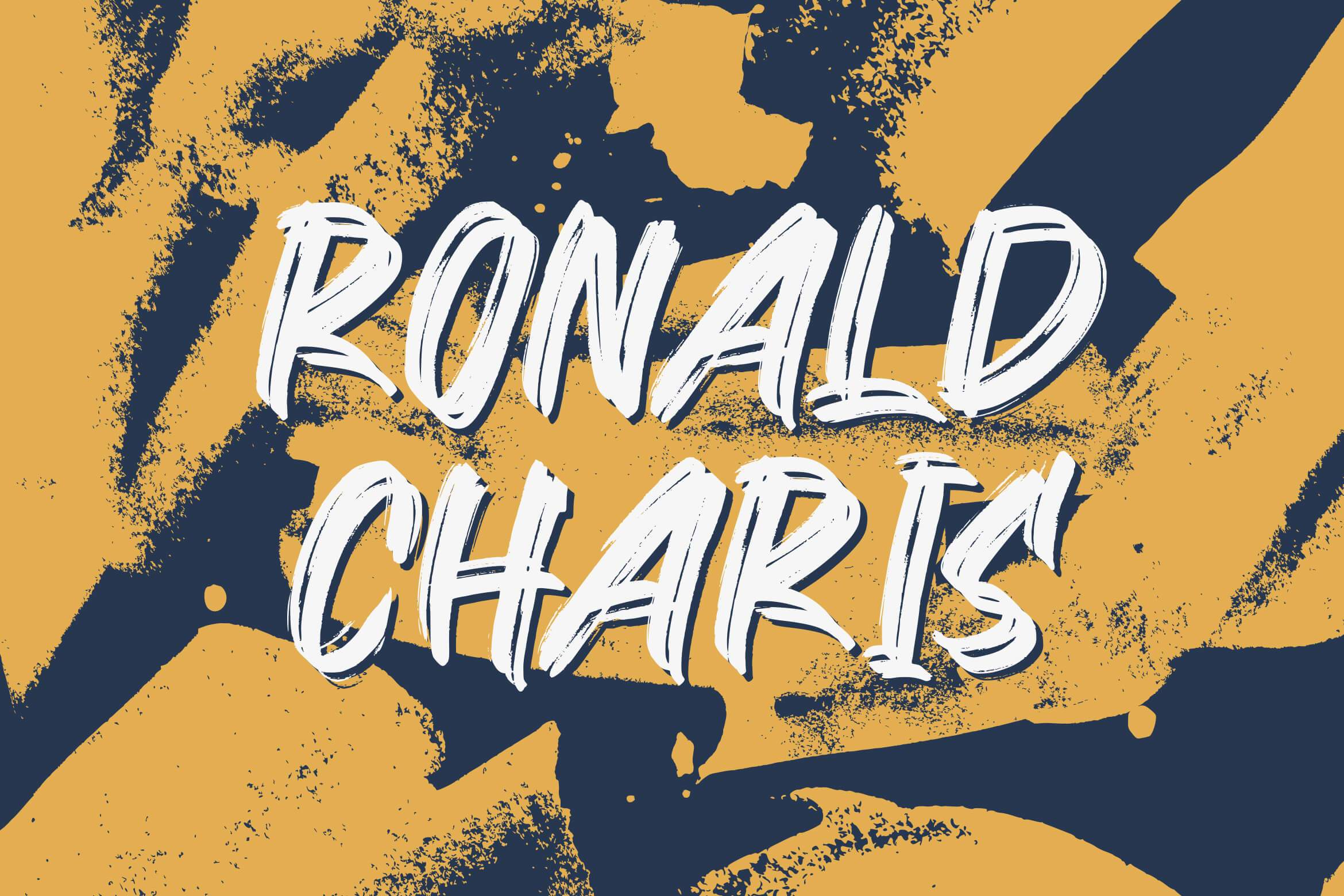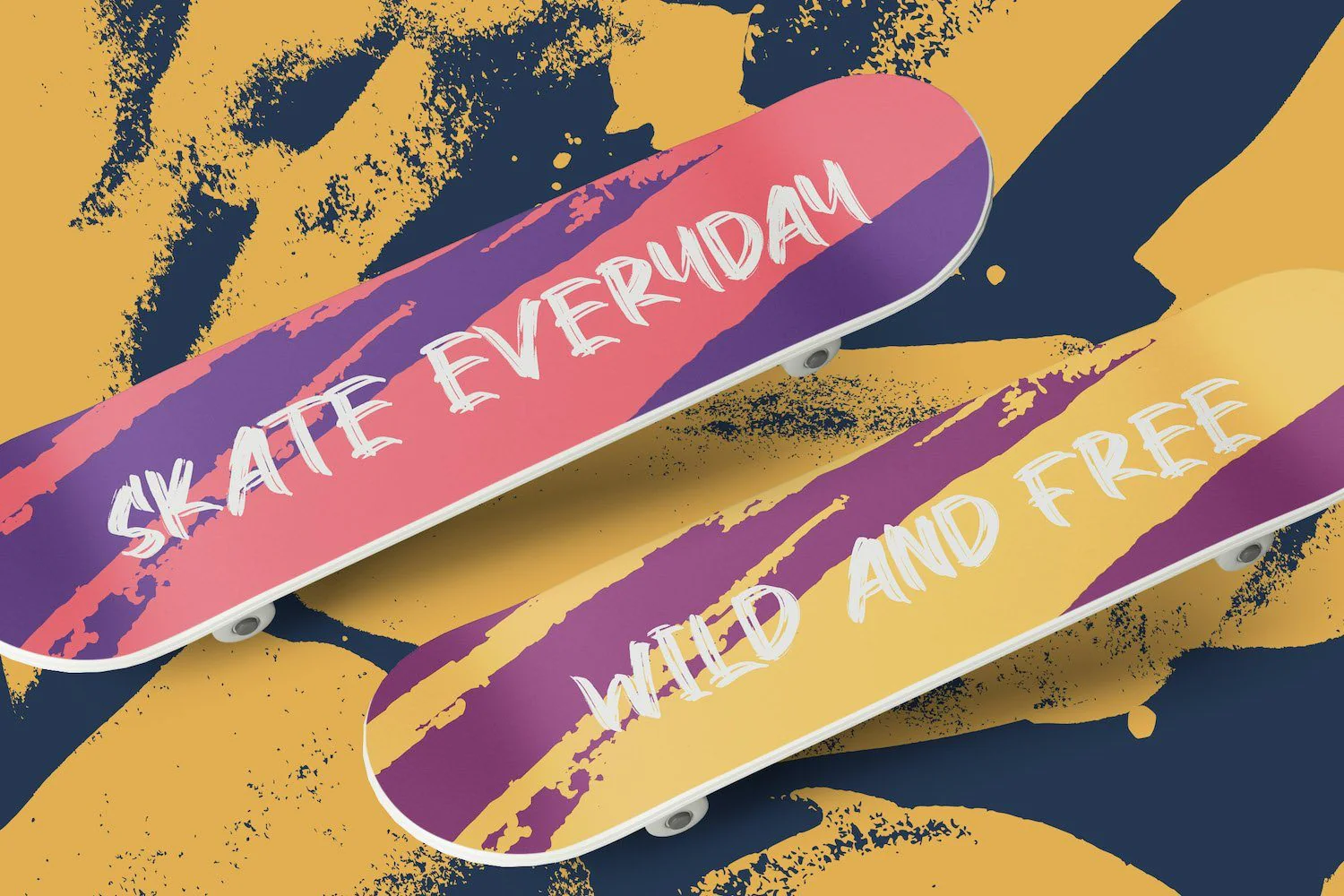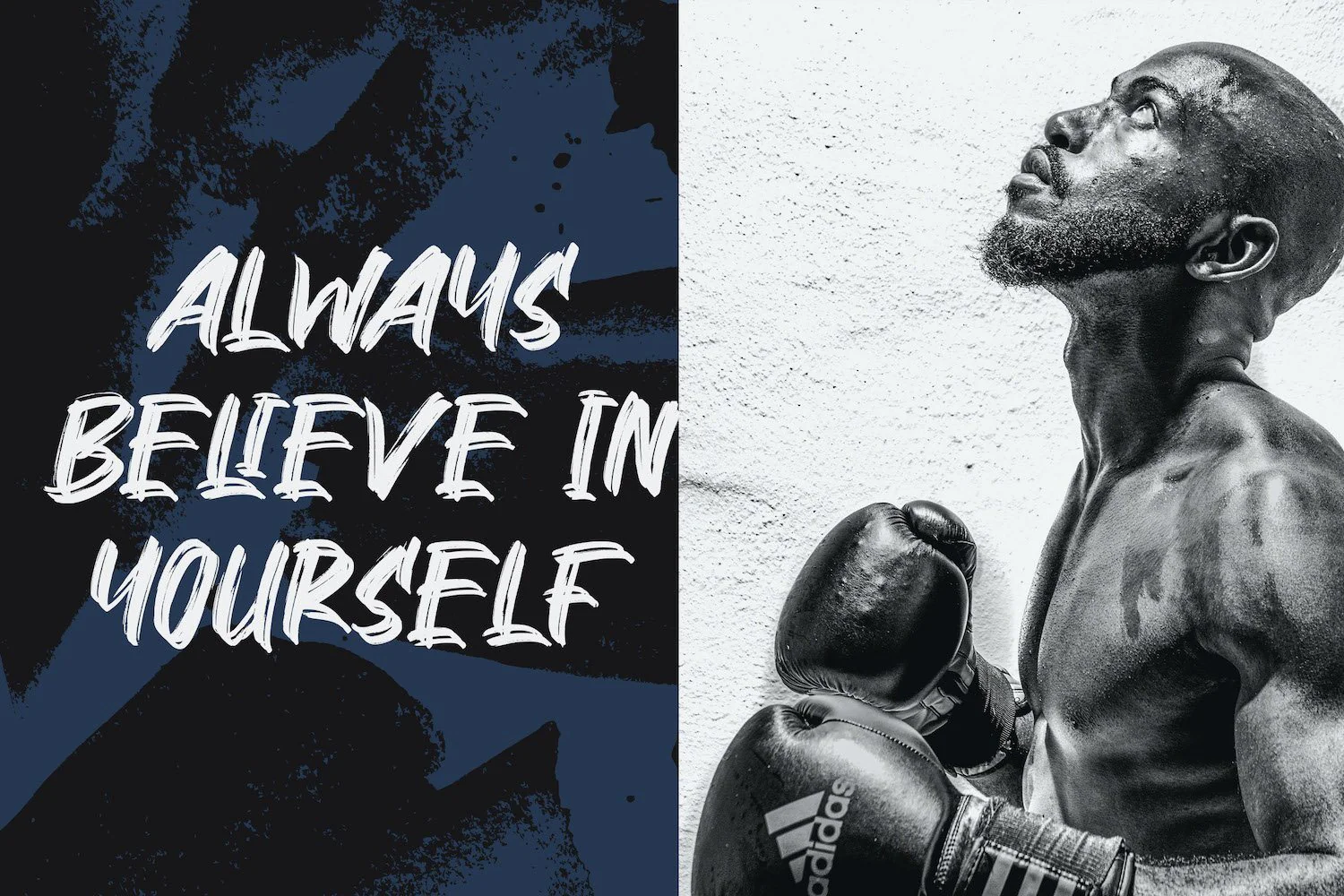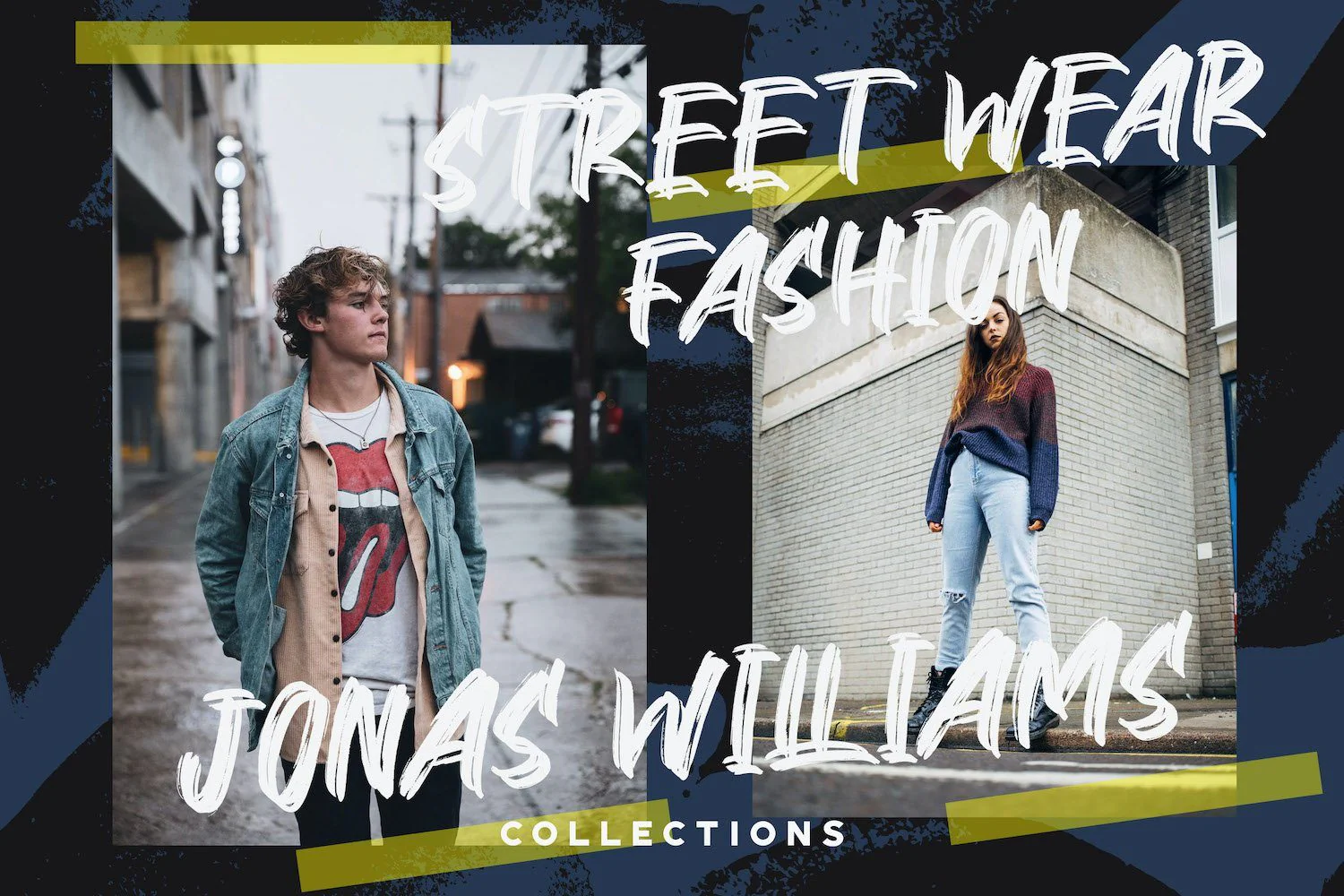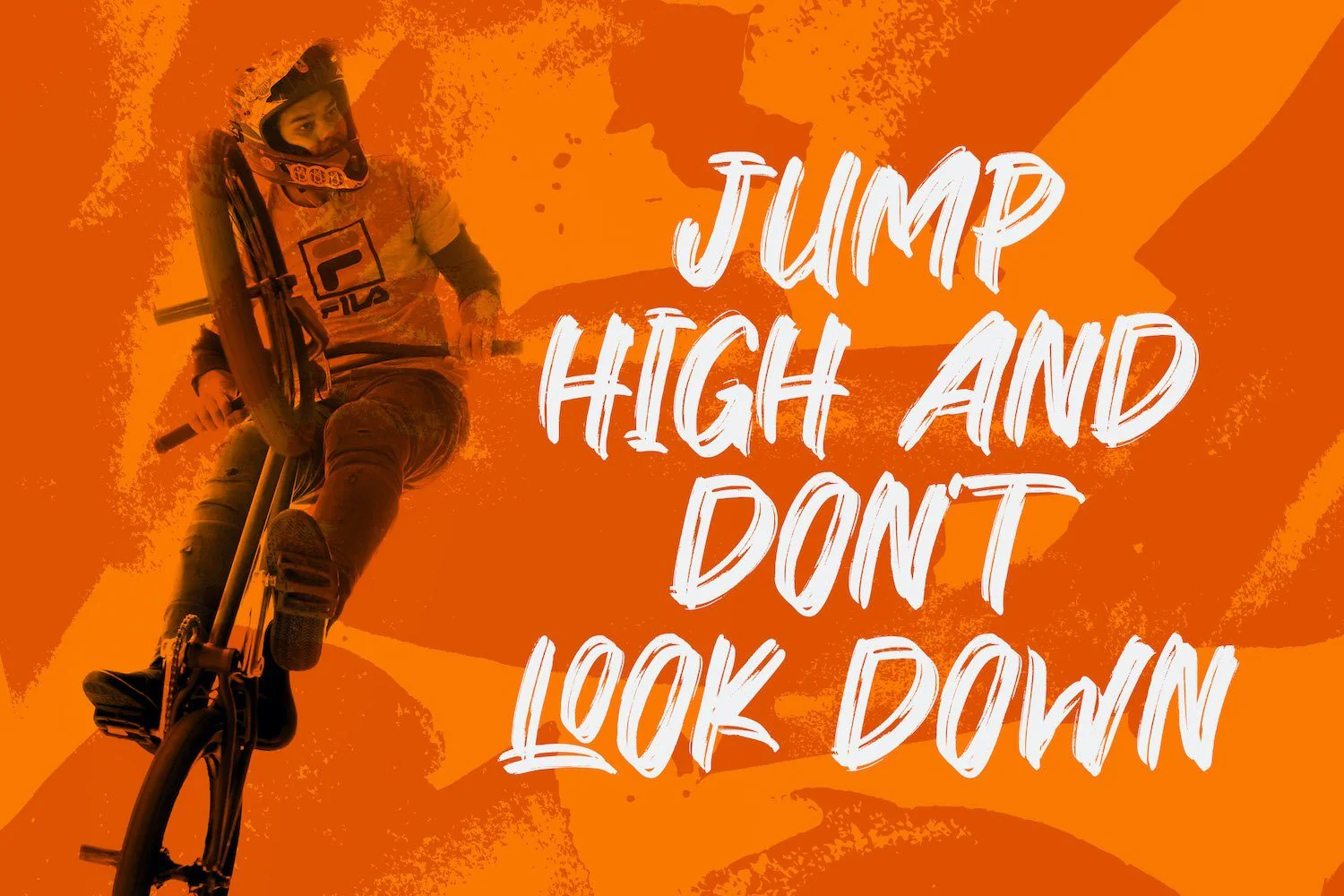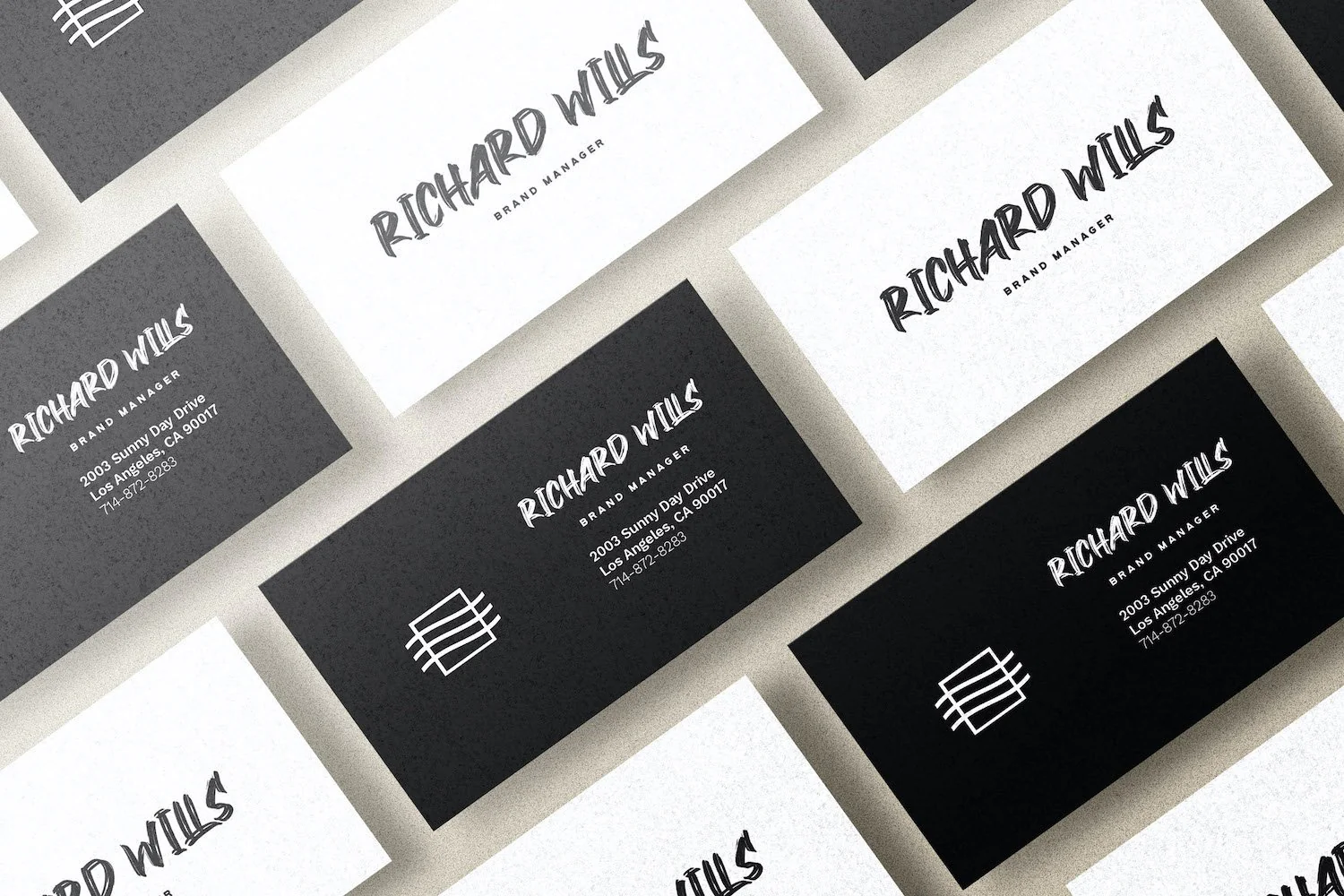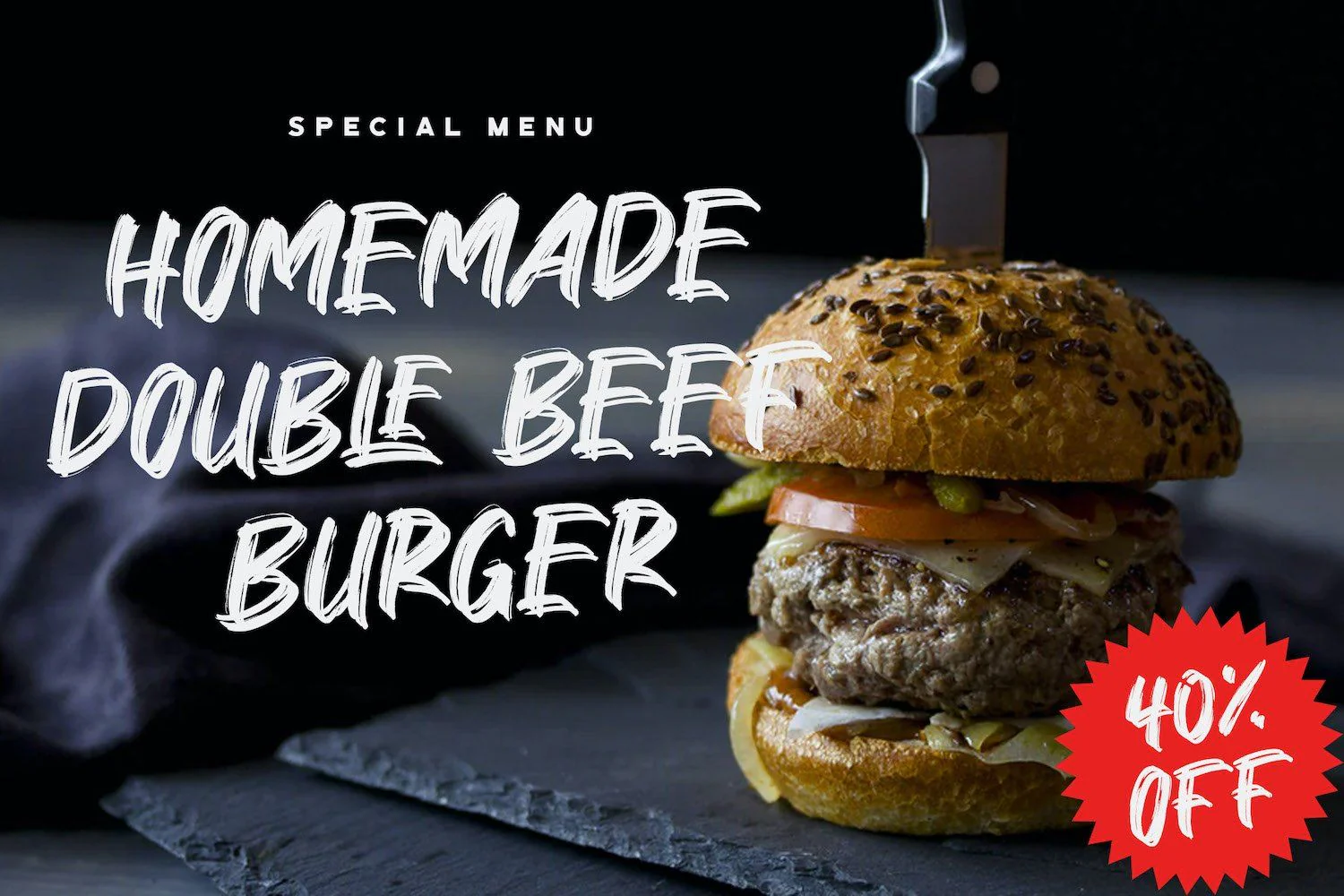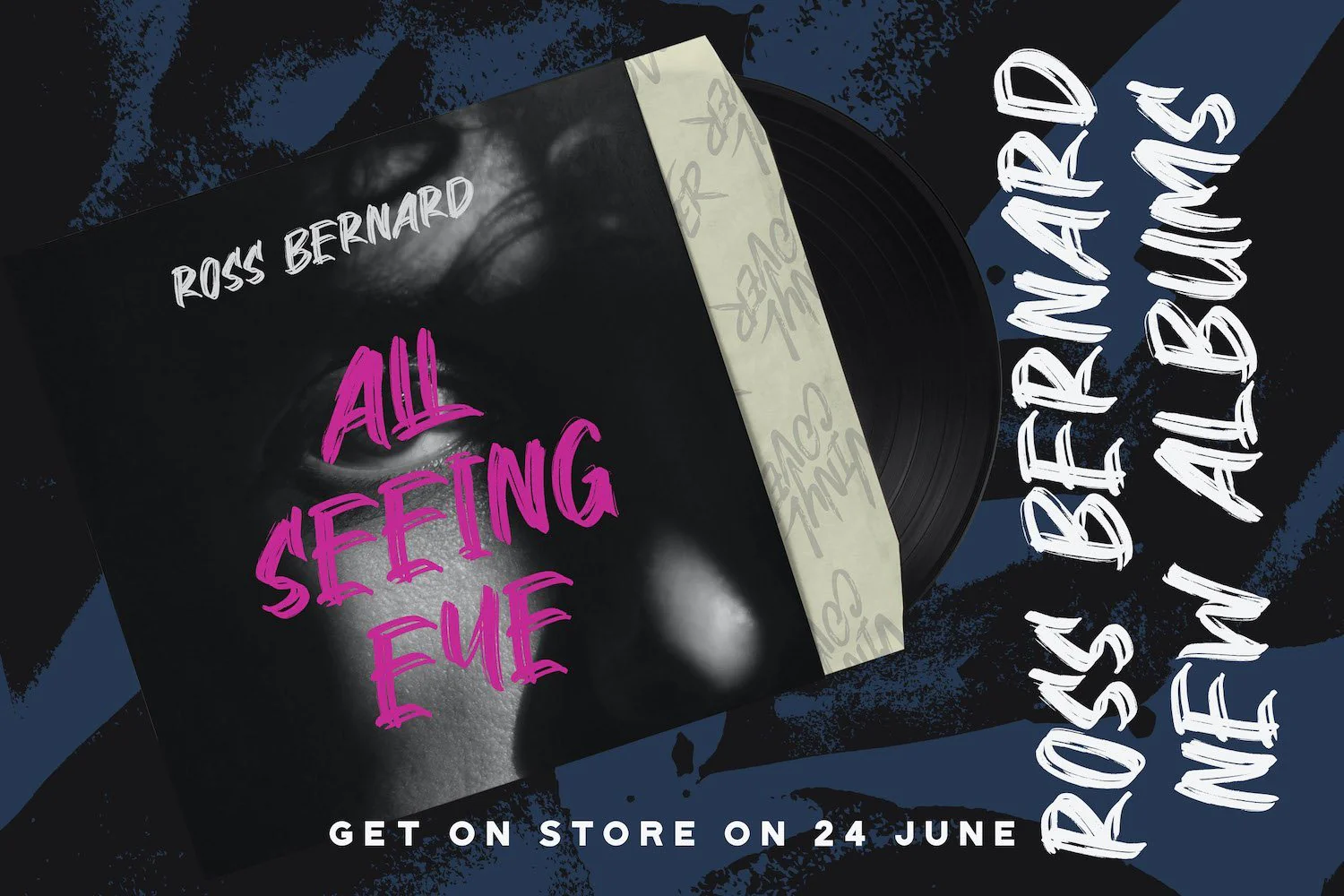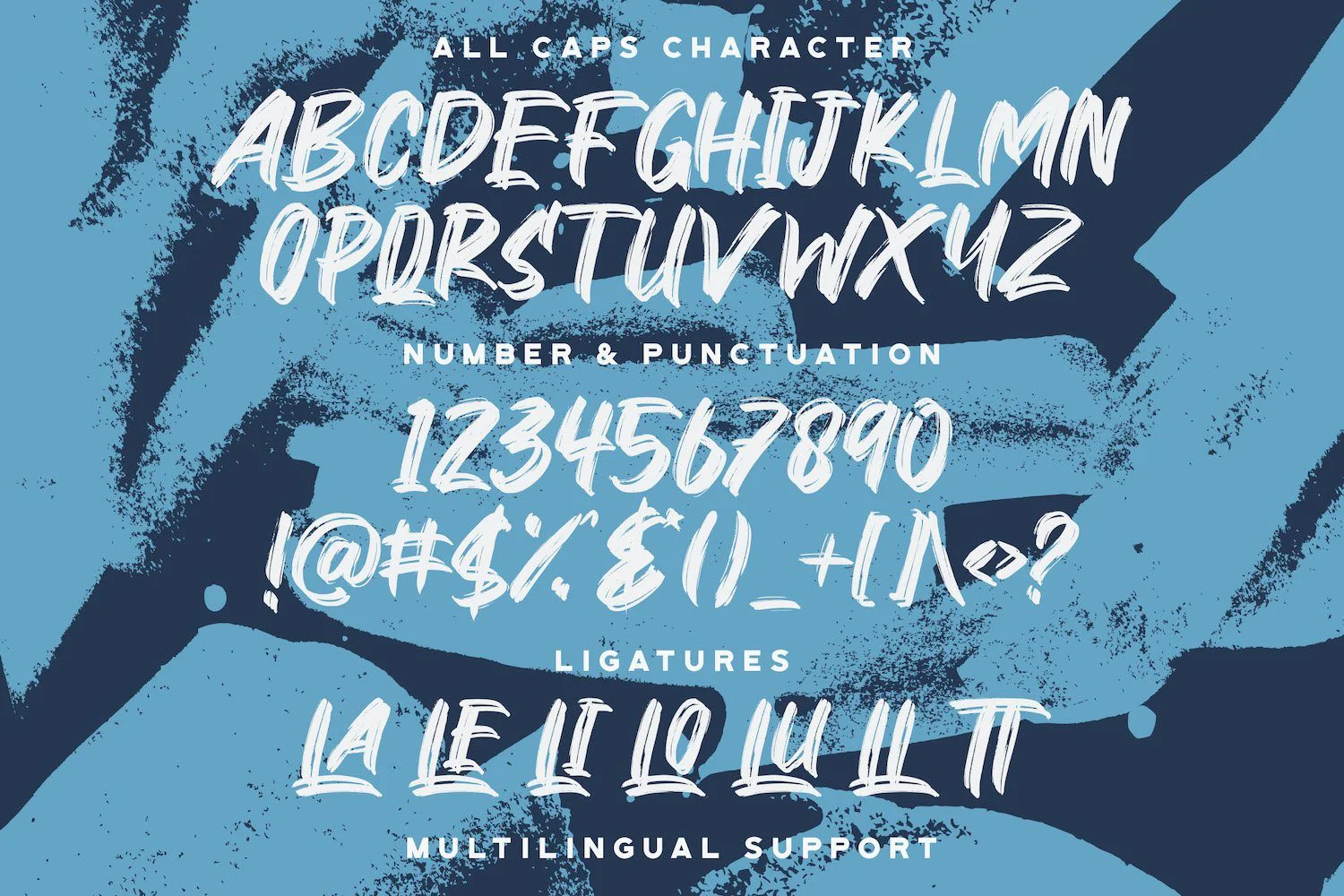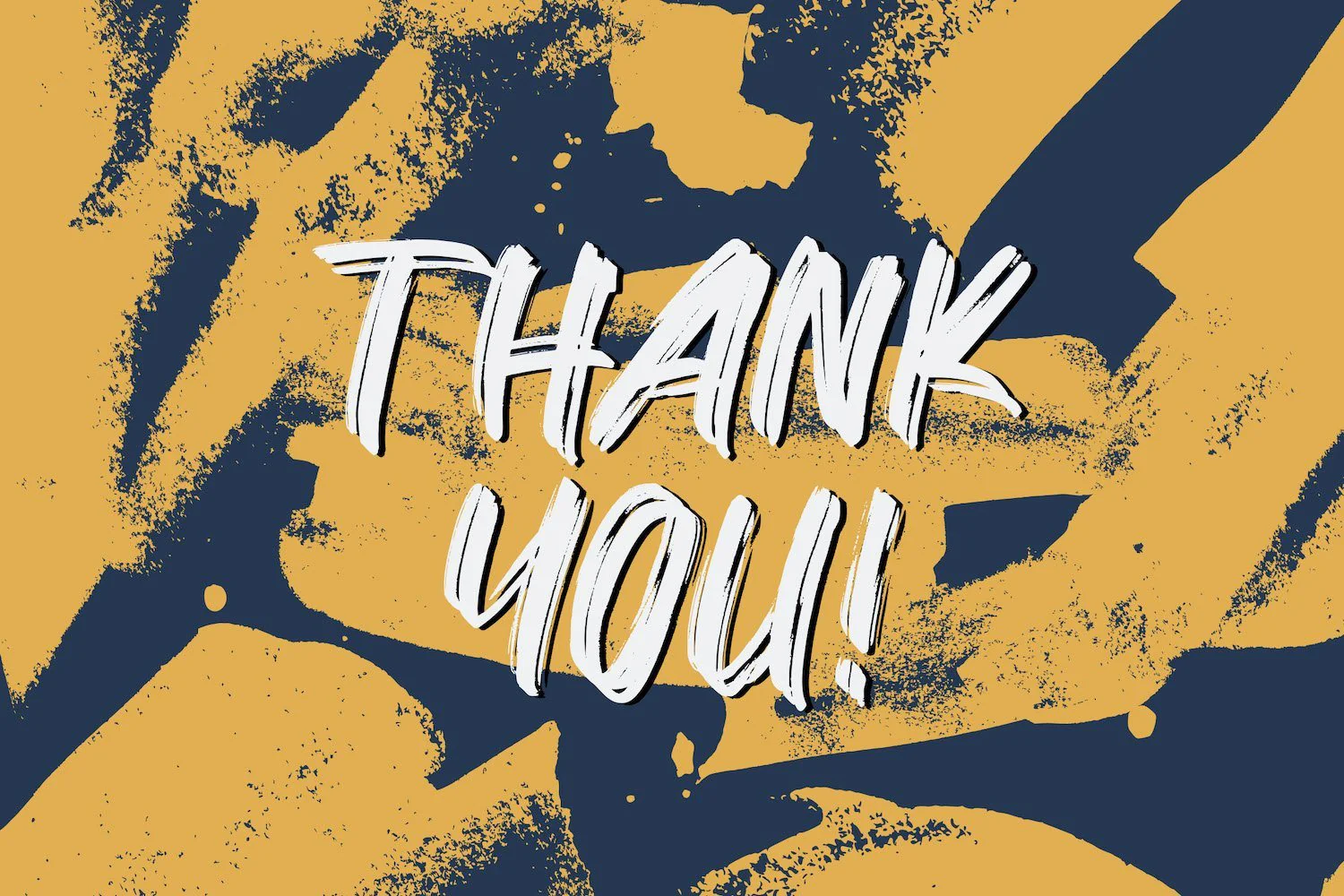
Ronald Charis - Textured Brush Font
Introducing Ronald Charis - Textured Brush Font
Ronald Charis is a textured handbrush font. Get inspired by its unique and beautiful style and add it to your favorite designs!